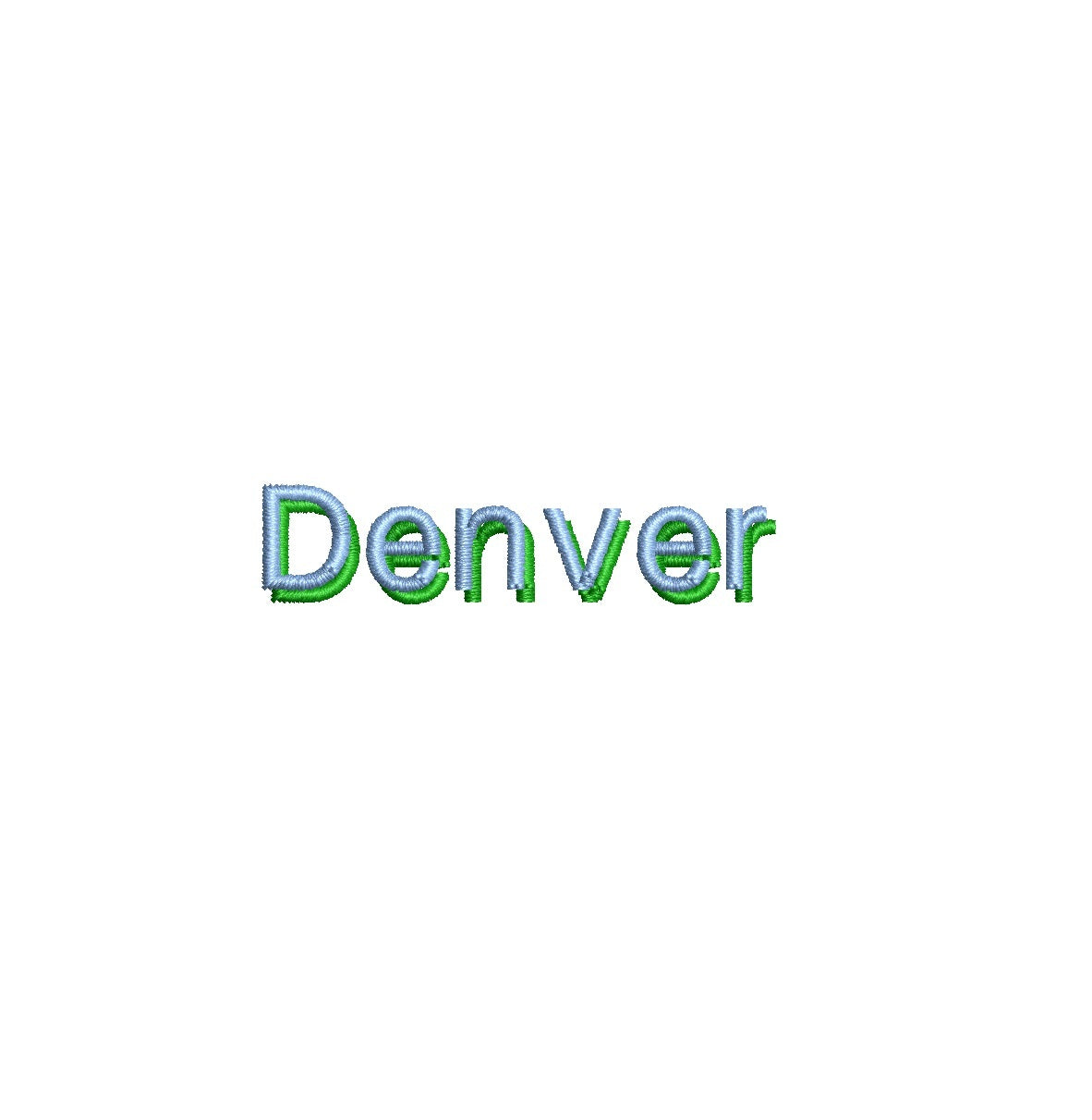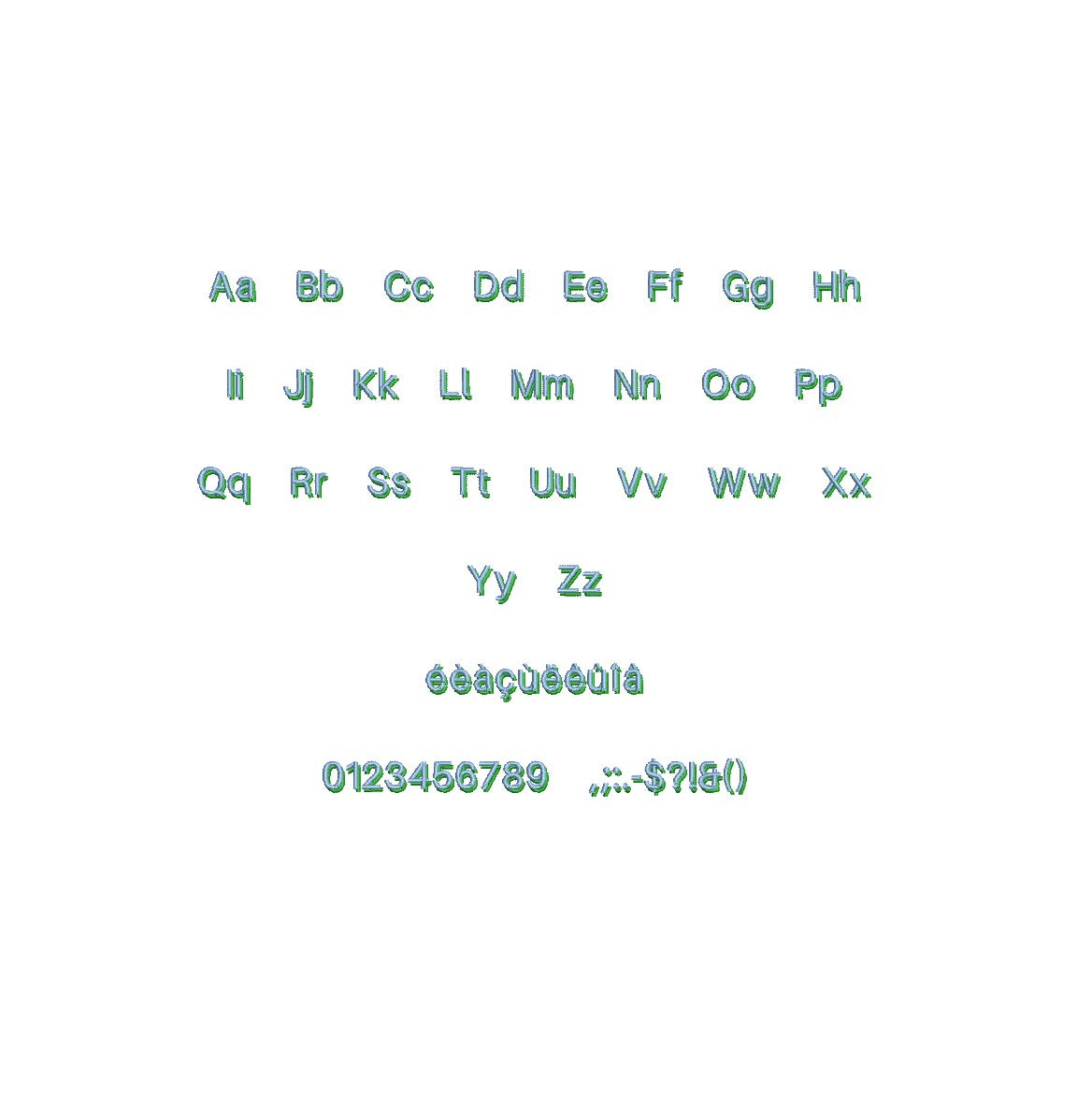
Elevate your designs with the versatile Denver Shadow ESA font. Fully compatible with Wilcom Studio e4.5.6 and Hatch 3 versions and up, this font brings a balanced blend of modern edge and classic charm to your projects. The intricate shadows and clean lines of this font create a captivating visual impact that sets your designs apart. Streamline your creative process and achieve flawless results by utilizing this font with industry-leading software. Upgrade your projects with the compatibility of Denver Shadow ESA font and craft visuals that resonate with timeless appeal. Embrace creativity and sophistication for your design journey today!